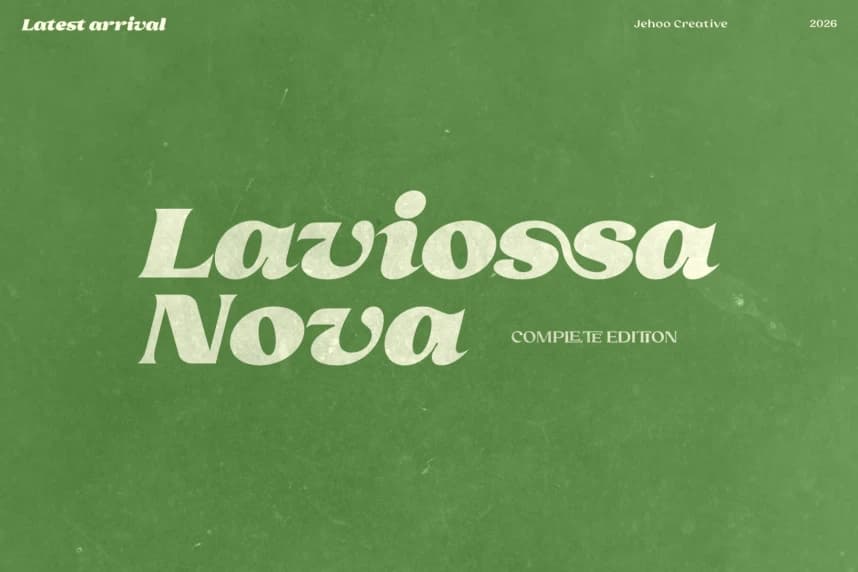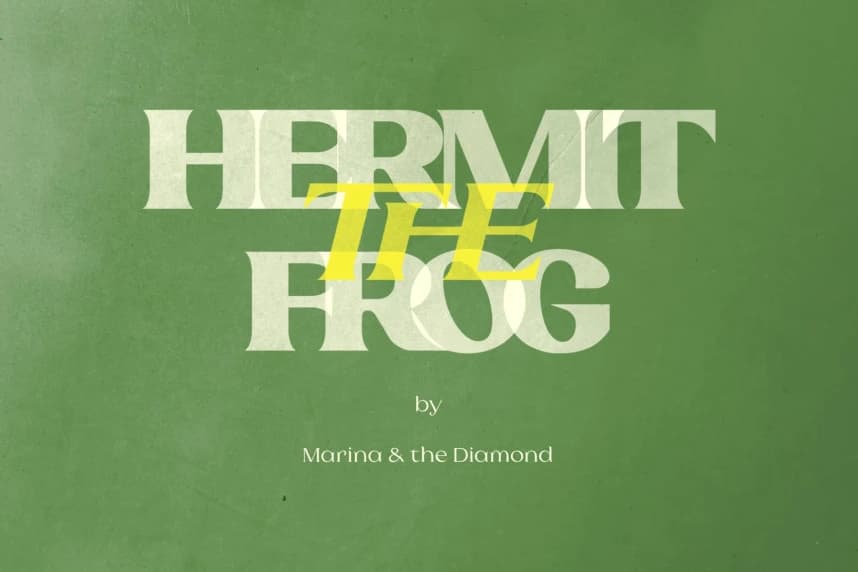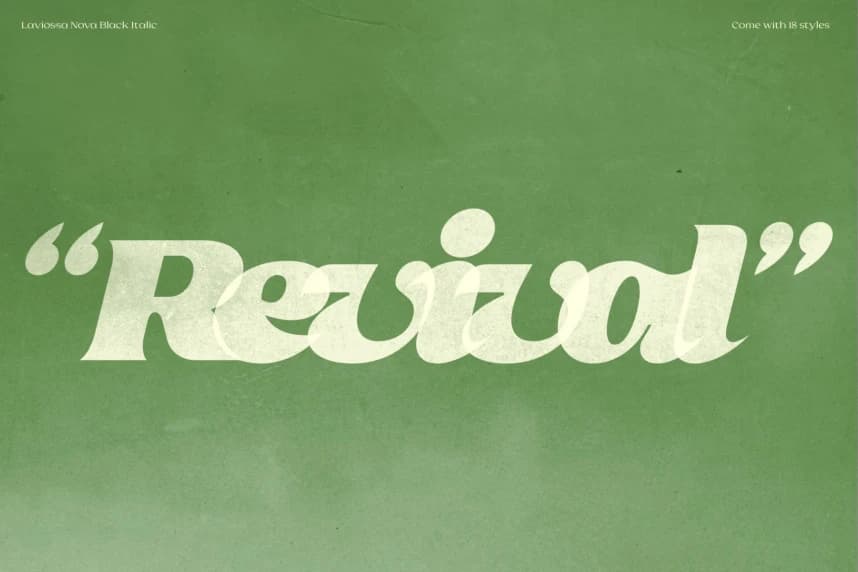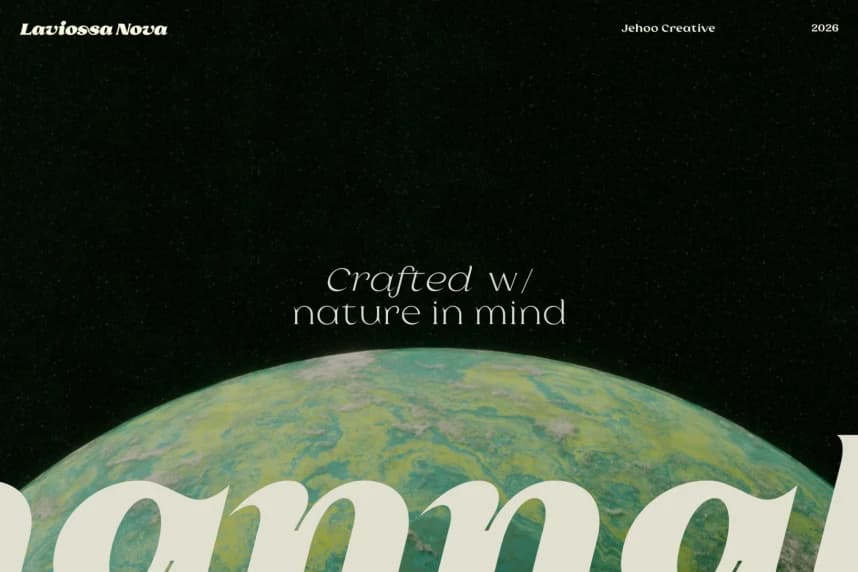
Laviossa Nova Font
Laviossa Nova Font is the latest, refined evolution of Laviossa—reworked with a sharper focus on balance, precision, and overall consistency. Every detail has been carefully reconsidered, resulting in a more polished and cohesive serif that elevates the foundation of its predecessor